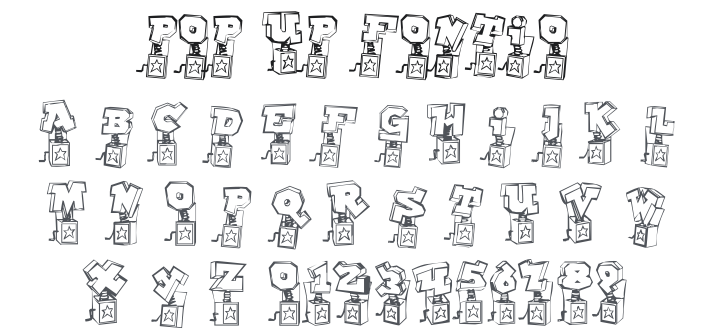
Pop Up Fontio Font
About Pop Up Fontio
Pop Up Fontio is a whimsical novelty display typeface where every goofy letter bursts out of a jack-in-the-box — each character springs from a little hinged crank box with the playful, startled energy of a surprise toy. The result is irresistibly cheerful and childlike. Perfect for children's party invitations, toy branding, carnival posters, amusement park graphics, and any design needing pure, joyful, pop-up-book fun.